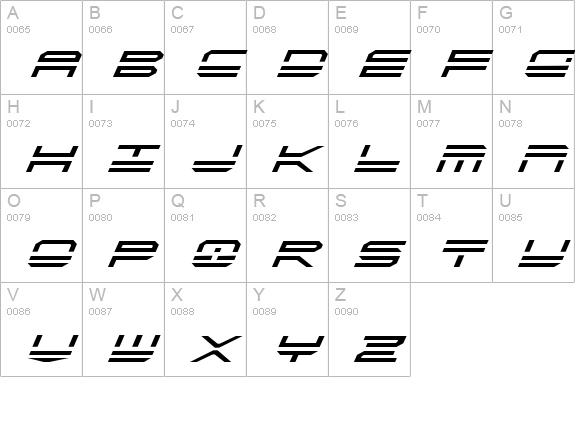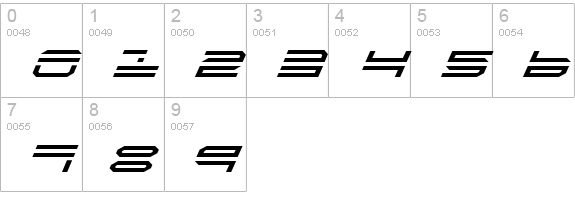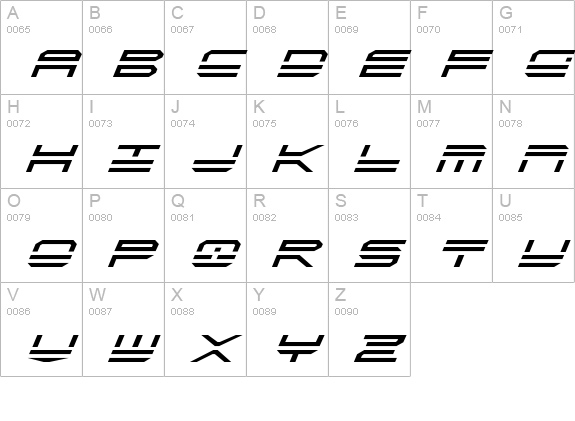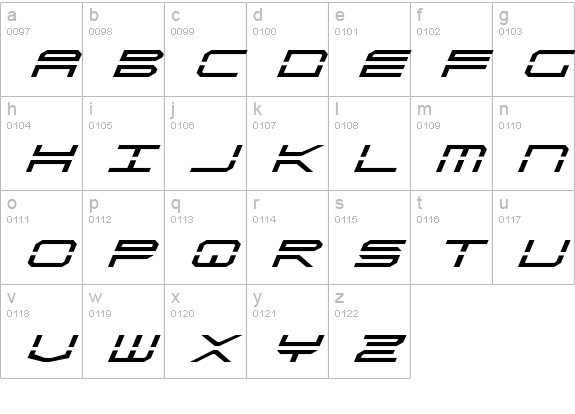
QuickStrike Italic is a distinctive, italic variant in the QuickStrike typeface family \xE2\x80\x94 well suited to design and typography projects.
QuickStrike Italic font is a stunning and eye-catching typeface that is perfect for adding a touch of elegance and sophistication to any design project. With its sleek and modern design, this font is sure to make a bold statement and grab the attention of viewers. The italicized style of QuickStrike adds a sense of movement and dynamism to the text, making it ideal for headlines, titles, and branding materials. Its unique letterforms and flowing curves give it a sense of grace and fluidity, making it a versatile choice for both digital and print applications. One of the best things about QuickStrike Italic font is that it is completely free to download at FontsMarket.com. This means that you can enhance your designs with this beautiful font without having to worry about any additional costs. Whether you're a professional designer or a casual creator, this font is readily available to elevate your projects to new heights. So why wait? Take advantage of this fantastic opportunity and download QuickStrike Italic font today. Whether you're working on a website, a logo, a poster, or any other creative project, this font will bring a touch of elegance and style that will surely impress. Don't miss out on this amazing font that is freely available to you at FontsMarket.com.